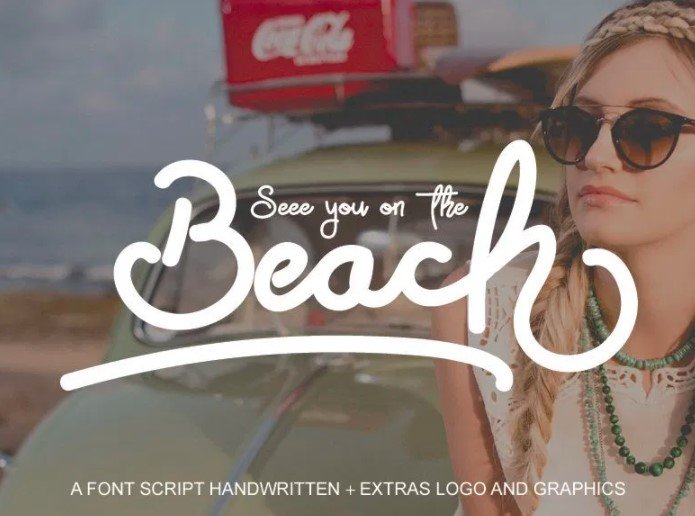
We are happy to announce the sharing of a popular typeface that is Beach Font which can be downloaded for free and used for all kinds of unique and elegant projects without any cost.
The font is perfect for all designing layouts. It contains unique touch that puts more beauty and attractivity into your designs. Also, it supports multilingualism that can easily be used for all languages.
It contains more than 256 glyphs, ligatures, condensed styles, more unique features. All of the features come for free for all designers. You can also use this font with the combination of wreath font.
View Of Beach Font
Here we provide an image which includes the characters and letters of this beautiful, you can perceives it by viewing on the image and get an idea how delightful it is.
This beautiful and elegant typeface for making all kinds of graphic stuffs. It comes with large characters set and having awesome features that will designed your projects smartly with its keen features and you can also utilized it with the combination of conthrax font.
You can easily used in making posters, banners, covers, logos designing and any other graphical projects can easily be made with this font.